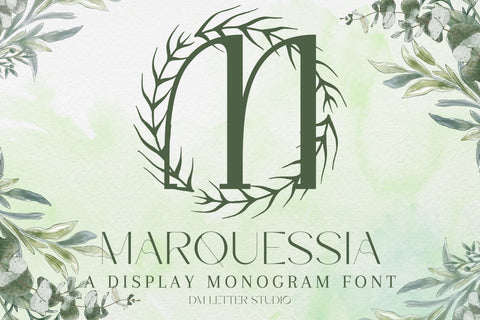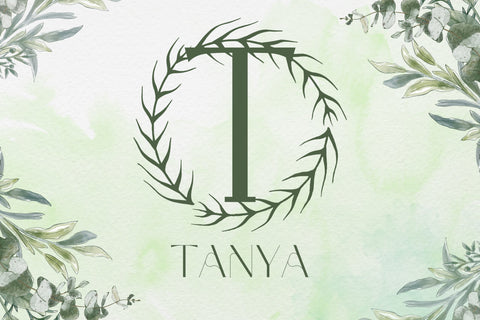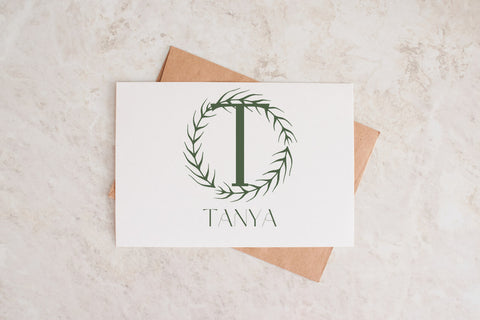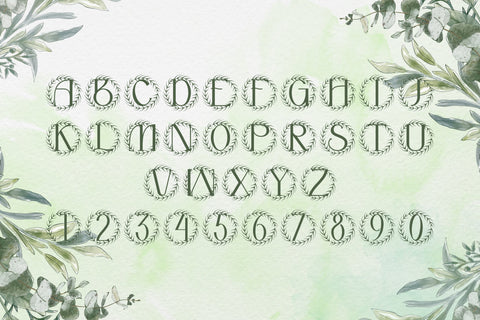
Marquessia Monogram Font
Meet Marquessia, the Monogram Font
Marquessia Monogram Font turns simple initials into poised, heirloom-ready emblems. Lines are smooth and confident, with generous counters that keep tiny tags readable and thumbnails crisp. Use it for wedding suites, boutique logos, keepsake gifts, wax seals, and premium packaging. In addition, Marquessia pairs beautifully with refined serifs or a quiet humanist sans, so layouts feel elegant without extra effort.
Where this monogram font shines
Set single, double, or triple initials for logos, seals, menus, and place cards. Then frame them with laurel rings, ovals, rope circles, or fine rules to echo Marquessia’s balanced geometry. Since proportions favor symmetry and clear spacing, centered compositions come together in minutes. As a result, your listings stay consistent across invitations, signage, boxes, and tags, while the monogram scales smoothly from jewelry cards to entry displays.
Design tips for Marquessia Monogram
Keep initials large and let white space breathe. Pair the hero monogram with a soft serif for body text or a clean sans for dates and labels. Then, add micro shadows, a fine inner stroke, or a delicate frame for depth. Because the forms are airy and refined, textured papers and metallic accents raise perceived value. However, keep wording short so the monogram remains the hero on small favors and wax seals.
Select stylistic alternates for key letters
Curves tuned for foil, letterpress, engraving, laser cutting, and clean vinyl paths
Why creators choose Marquessia
You want elegance that reads at a glance and sells across many product types. Then, Marquessia Monogram Font delivers steady clarity, fast layout, and a cohesive brand voice from invites to packaging and gifts.